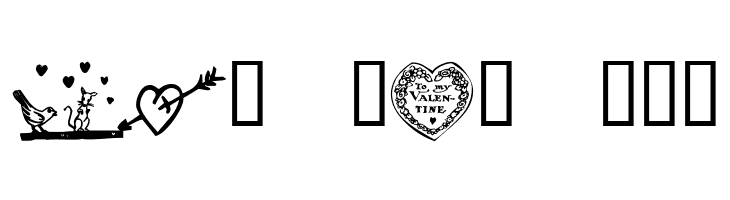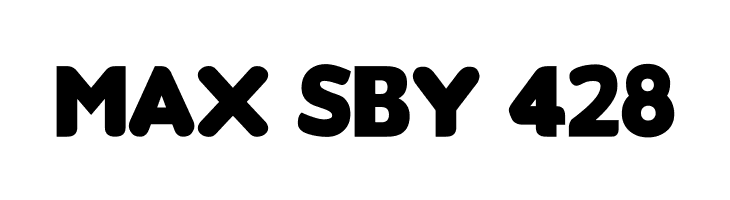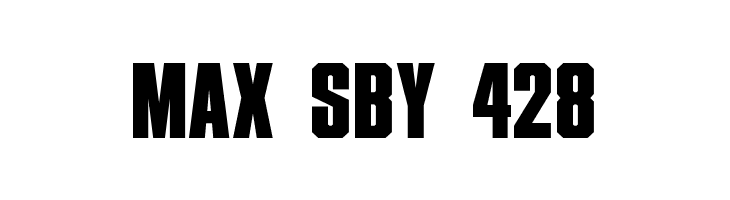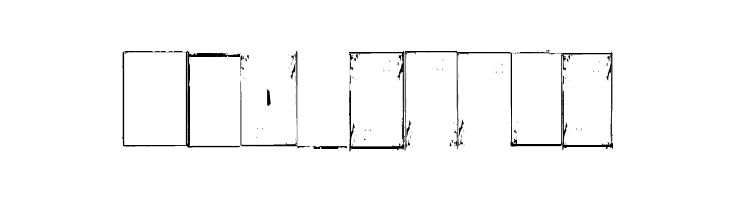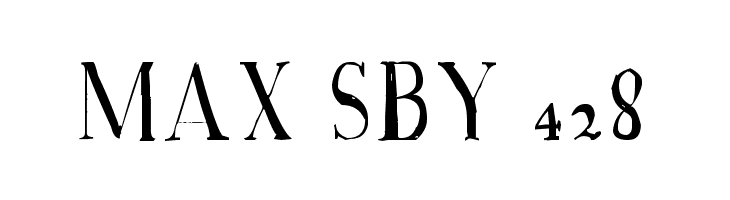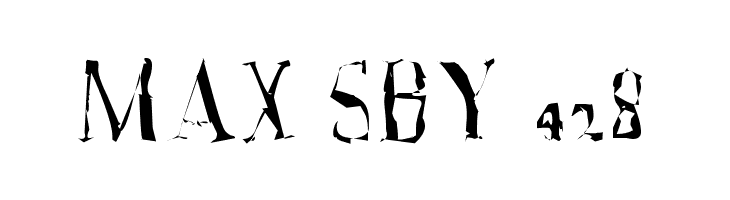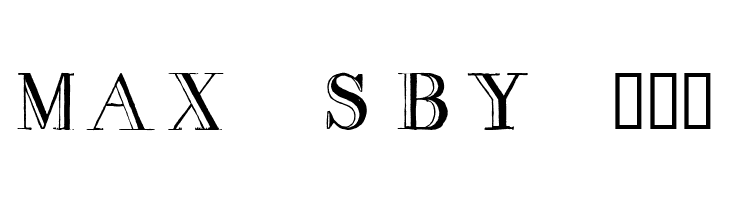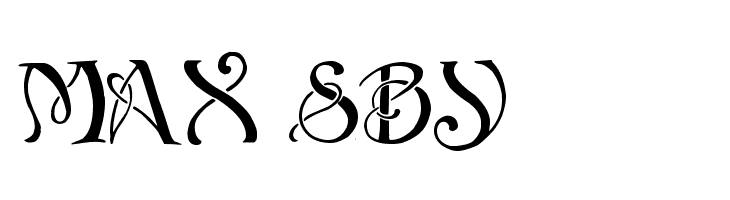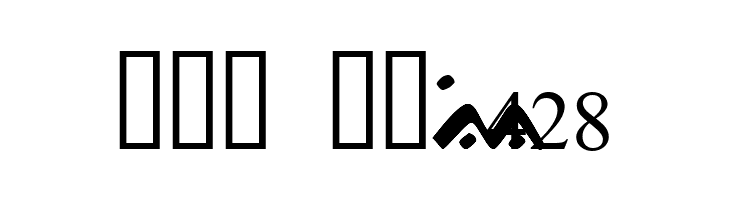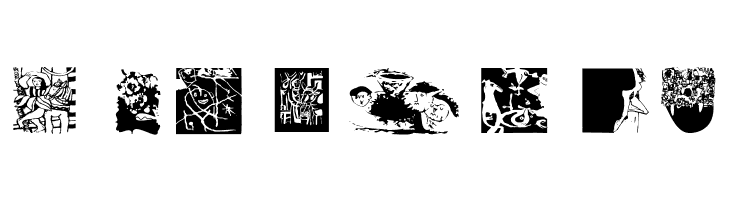
A bold, rounded font with a playful and friendly appearance.
A bold, geometric font with a strong, industrial style.
Minimalist, box-outline geometric font with extreme abstraction.
A serif font with a hand-drawn, artistic style and dynamic stroke widths.
A bold, serif font with a distressed and disordered appearance.
A decorative serif font with intricate detailing and elegant style.
A decorative font featuring whimsical and artistic illustrations within each character.
A playful 3D outline font with bold, rounded characters and a whimsical style.
A playful, handwritten font with rounded edges and a casual style.
A playful, oblique font with smooth, rounded characters and a dynamic style.
A whimsical, bird-themed decorative font with playful avian elements.
A playful, handwritten font with a friendly and casual style.
A bold, handwritten-style font with a playful and dynamic character.
An ornate script font with decorative swirls and elegant flourishes.
A bold, stencil-style font with a rugged, distressed look.
A playful, hand-drawn font with quirky, irregular letterforms.